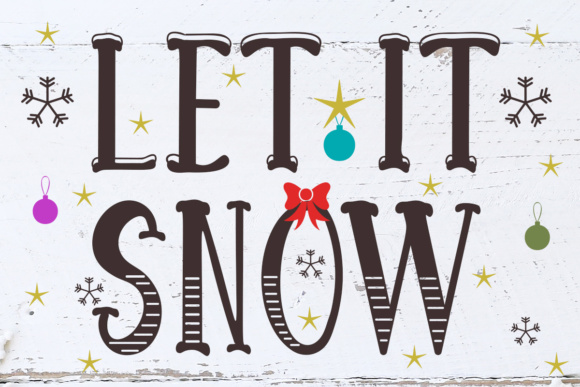
Embrace the enchanting allure of Let It Snow Font, a captivating display font born from the imagination of Lickable Pixels, a renowned artist in the digital typography realm. This winter-themed masterpiece transports you to a frosty wonderland where letters dance like snowflakes, captivating your audience with its charm and elegance.
Let It Snow Font isn't just a collection of characters; it's an artistic expression that evokes a sense of wonder and nostalgia. The regular characters exude a classic beauty, while the snow-topped versions add a touch of whimsy and playfulness. And for those seeking a truly unique touch, the hollow-striped variation offers a striking visual element that commands attention.
We've meticulously crafted Let It Snow Font to cater to a wide range of design projects. Whether you're creating enchanting invitations for winter weddings, designing eye-catching posters for holiday events, or conjuring up magical branding for your business, this font will infuse your creations with a touch of winter magic.
With Let It Snow Font, you're not just downloading a font; you're inviting a world of creativity and wonder into your design projects. Let the snowflakes of inspiration fall upon your work, and experience the transformative power of a font that truly captures the essence of winter.